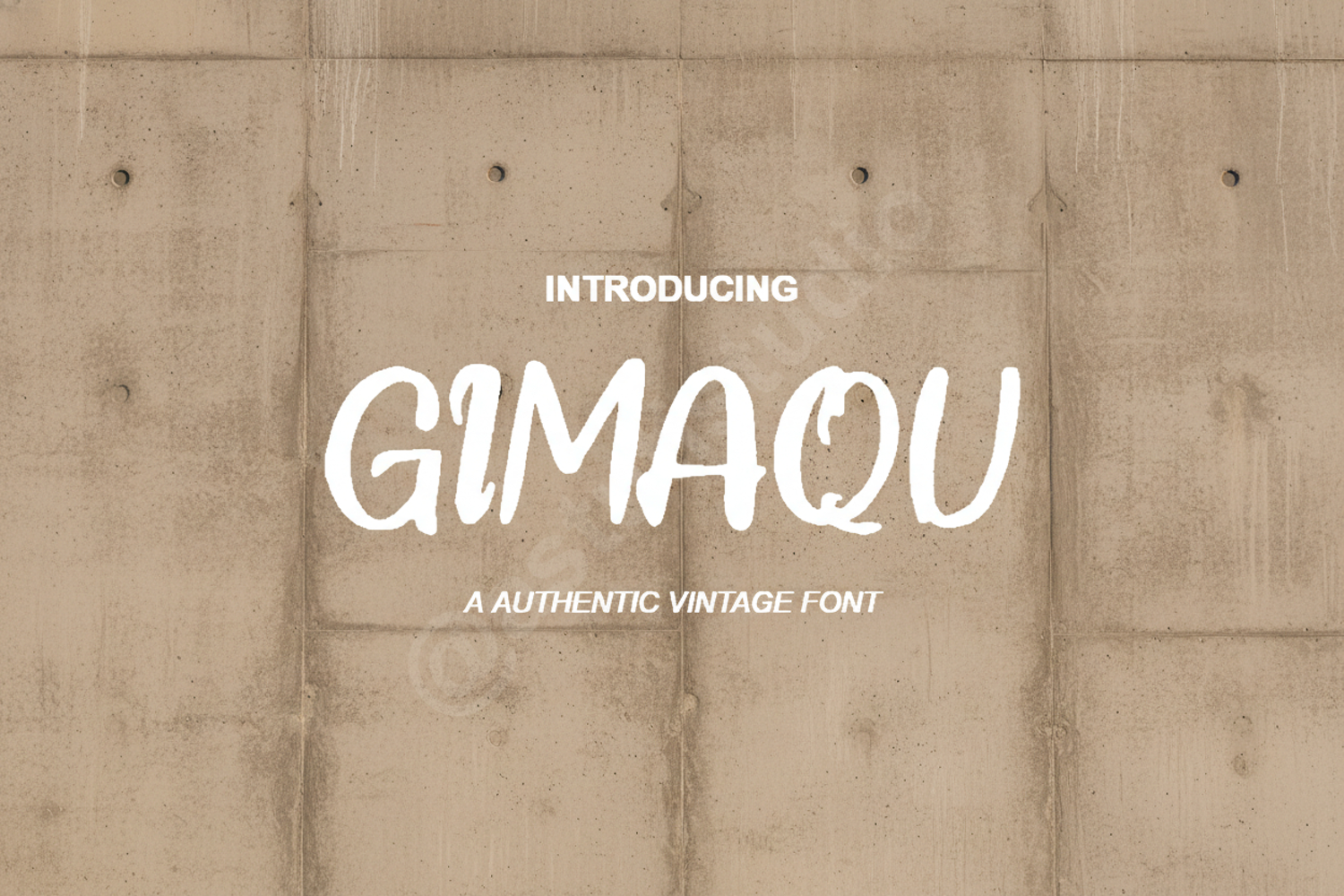
Gimaqu - Modern Luxury Display Serif
Gimaqu
Gimaqu is a sophisticated and high-end display serif font designed to bring a touch of class to any creative project. With its clean lines and unique character shapes, it perfectly bridges the gap between classic elegance and contemporary design. Whether you are aiming for a minimalist aesthetic or a bold statement, Gimaqu provides the versatility and premium quality required for professional typography.